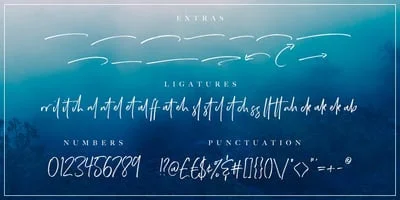
Wild Spirit Font
Wild Spirit Font is an exceptional choice for projects that demand a sense of untamed creativity, adventurous freedom, and a distinctly handcrafted, free-flowing aesthetic. It's perfectly suited for bohemian branding, outdoor adventure gear, natural product packaging, heartfelt personal blogs, and any design where you want to evoke a feeling of authenticity, wanderlust, and a connection to nature. Imagine it gracing a unique travel journal's cover, adding an organic and inspiring touch to an eco-friendly brand's logo, or giving a distinctive, free-spirited personality to a nature photography portfolio. Its expressive strokes and uninhibited character ensure your message is conveyed with both passion and an undeniable sense of genuine artistry.
What makes Wild Spirit Font so exciting is its ability to immediately infuse a design with a sense of raw, unrefined beauty and an endearing, hand-drawn charm. It offers a visual statement that feels both unique and universally appealing, making it perfect for designs that aim to feel approachable, spirited, and genuinely memorable. This font isn't just about conveying text; it’s about creating an atmosphere of liberated creativity, bringing a sense of spontaneous artistry and honest character to your visuals. It's the ideal tool for designers who want their work to feel personal, inviting, and truly stand out with a touch of charming individuality.
The Wild Spirit Font family typically focuses on delivering its signature artistic and free-flowing style with precision. You might find a standard Regular weight that embodies its core expressive design, along with potential variations that enhance its handcrafted appearance, such as slight stylistic alterations or perhaps a bolder version for emphasis. These nuances ensure that Wild Spirit Font can be the cornerstone of a truly unique and powerfully thematic visual identity, helping your designs stand out with an undeniable sense of character and authentic, wild allure.